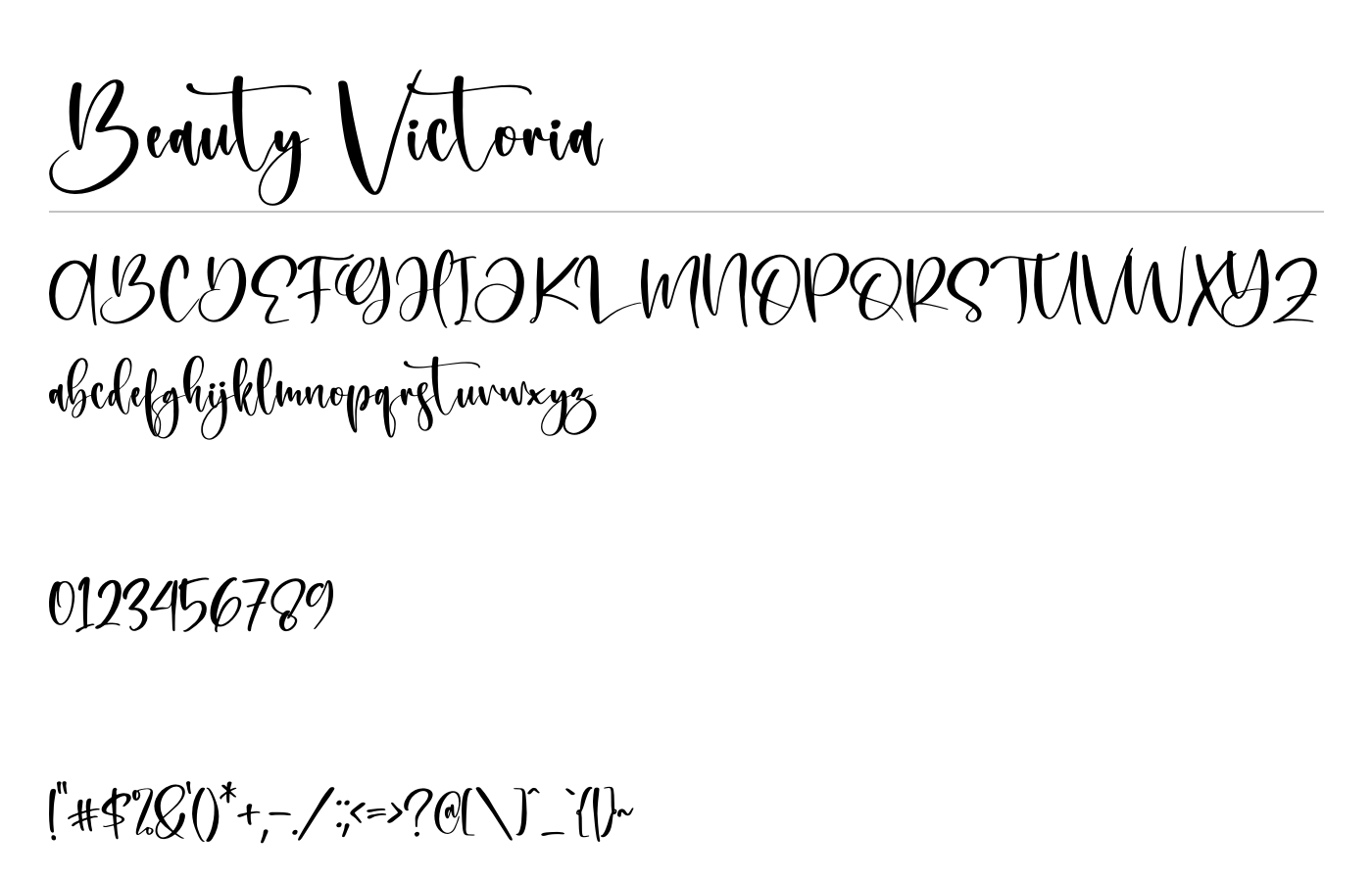
Beauty Victoria is a playful and elegant script font with a hand-drawn feel, featuring flowing strokes and lively, decorative letterforms. Its varying stroke widths and charming loops make it perfect for adding a personal, creative touch to branding, invitations, and stylish headlines. This font brings warmth and sophistication, ideal for fashion, beauty, and creative projects that want to stand out with a friendly yet refined look.
Beauty Victoria Font
About Beauty Victoria Font
| Font family | Beauty Victoria Font |